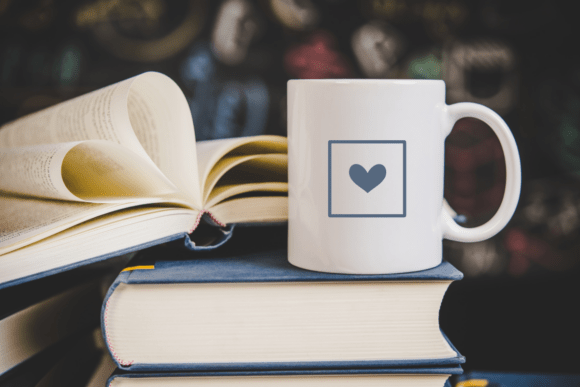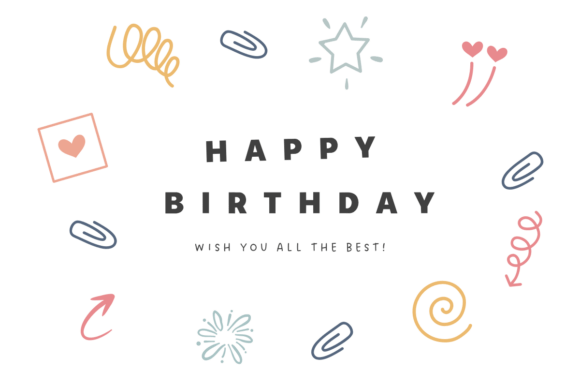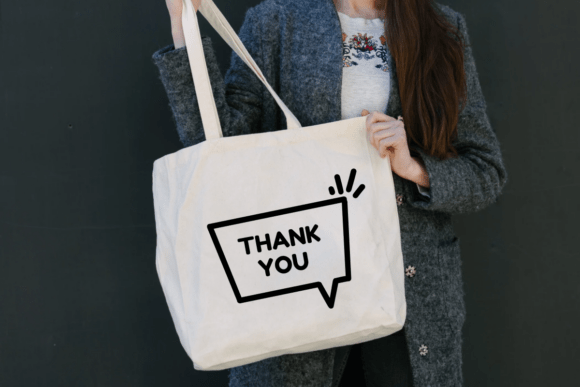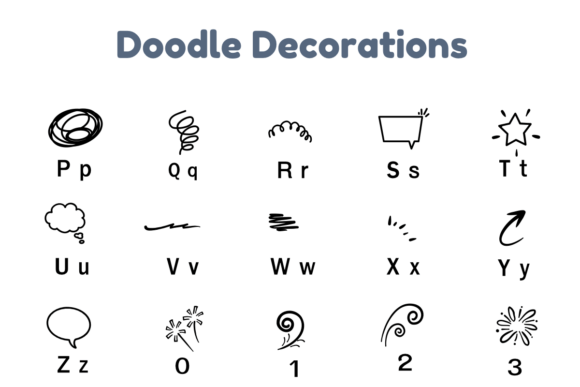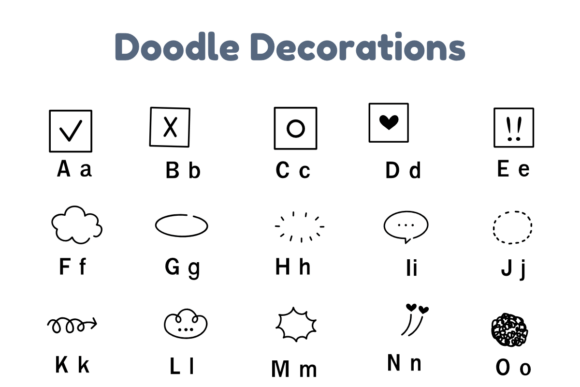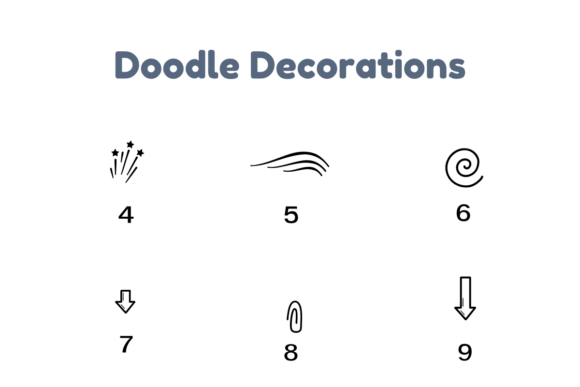
Introduction to Doodle Decorations Font
Have you ever stared at a blank canvas, searching for the perfect design element to bring your creative vision to life? That’s exactly where I found myself last weekend, working on a custom wedding invitation for a dear friend. The struggle was real – until I stumbled upon the Doodle Decorations Font, a game-changing dingbats font that added a touch of whimsy and magic to my design.
As a designer, I know how valuable it is to have a reliable design resource like the Doodle Decorations Font. Not only does it offer a high-quality, transparent background that’s perfect for any creative project, but it’s also incredibly versatile – from DIY crafts to logos and decorations, this font is a must-have in every designer’s toolkit.
Key Features of Doodle Decorations Font
- High-quality, free font perfect for creative projects and design resources.
- Comes in a transparent background format, allowing for seamless integration into various design elements.
- Features a unique, whimsical design style that adds a touch of personality to any creative project.
- Perfect for use in digital design, print materials, and web design projects, making it a versatile design resource.
Honest Review: Doodle Decorations Font
As a designer, I’m always on the lookout for new and exciting design resources to elevate my creative projects. Recently, I stumbled upon the Doodle Decorations Font, and I’m excited to share my thoughts on this quirky and charming font.
What works well: ✨ The Doodle Decorations Font is incredibly versatile and can be used in a variety of creative projects, from wedding invitations to children’s party decorations. The transparent background feature allows for seamless integration into any design, and the high-quality design ensures that the font looks crisp and clear even at larger sizes.
What doesn’t work well: ⚠️ While the font is free to download, the limited character set may be a limitation for more complex designs. Additionally, the font’s playful and whimsical style may not be suitable for more formal or corporate projects.
- Pros: High-quality design, transparent background, versatile, and free to download.
- Cons: Limited character set, may not be suitable for formal or corporate projects.
Overall, I’m impressed with the Doodle Decorations Font and would highly recommend it for designers looking for a unique and creative solution for their design projects.
The Doodle Decorations Font is a versatile and high-quality design resource perfect for adding a creative touch to your projects. It features a transparent background, making it easy to layer with other elements.
Experiment with layering the font with other design elements to create unique and visually appealing effects.
Use the transparent background to create depth and interest in your designs.
The Doodle Decorations Font is perfect for creative projects such as:
Invitations and event decorations
Personalized gifts and stationery
Marketing materials and advertisements